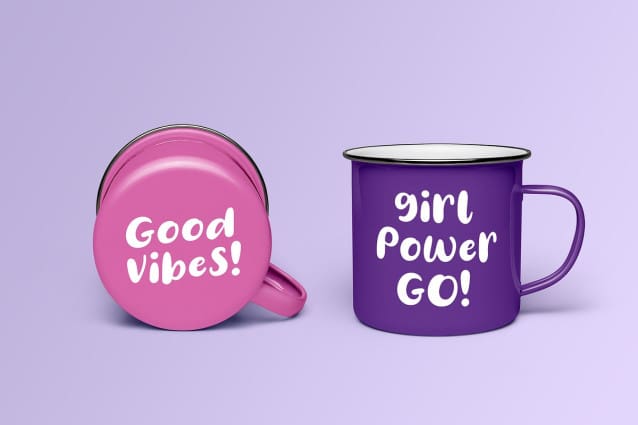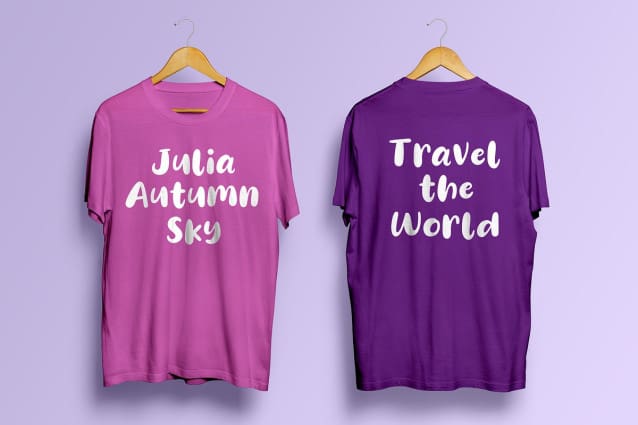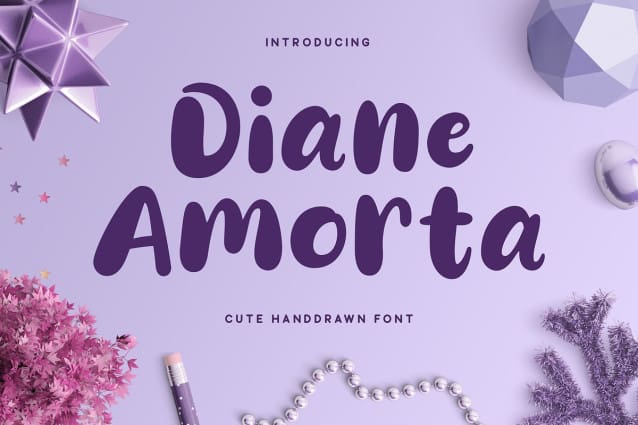
Diane Amorta Font
Diane Amorta Font is a cute and simple script font with authentic lettering. DianeAmorta is perfect use for a logo for branding, typography design, product packaging, invitation, quotes, t-shirt design, label poster, special events and anything that need handwriting taste.